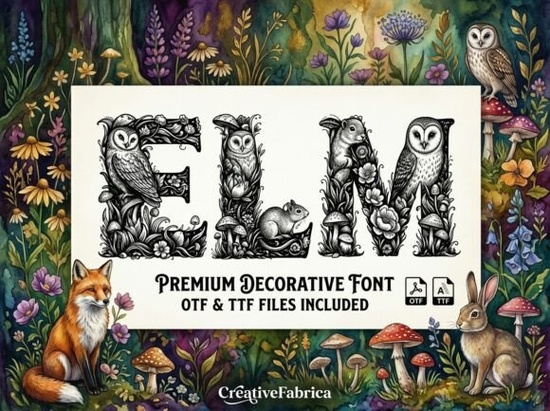
If you're looking for a decorative font that feels like stepping into an illustrated storybook where every letter breathes with woodland life you’ll love Elm Font. It’s not just another whimsical typeface. Each character is hand-crafted with quiet intention: owls perch on crossbars, squirrels curl around curves, mushrooms nestle in counters, and ivy winds through stems. Designed for creators who value both charm and craftsmanship, Elm fits naturally into projects where atmosphere matters as much as legibility like fantasy book covers, nature-themed nursery prints, or Instagram headers that invite a second glance.
What makes Elm different from other decorative fonts?
Most decorative fonts lean heavily on ornamentation but Elm uses illustration as structure. The animals and plants aren’t added-on flourishes; they’re integral to the letterforms. That means it holds up well at larger sizes (think wall art or book titles), while still reading clearly at medium scale (like social media banners or greeting cards). Unlike script-heavy or overly condensed options, Elm has generous spacing and balanced weight distribution so it doesn’t feel cramped or chaotic, even when layered over textured backgrounds or paired with simpler sans-serif companions.
It’s also thoughtfully expanded: includes full Latin A–Z, numerals, punctuation, and multilingual support for Western European languages. You’ll find stylistic alternates for key letters (like a version of “A” with two owls facing each other), plus ligatures that subtly enhance flow without sacrificing readability.
Who uses Elm and how?
Designers building cohesive brand identities for indie publishers often reach for Elm when launching a new fantasy series it gives titles instant warmth and narrative texture. Print-on-demand sellers use it for nursery decor bundles, especially those leaning into cottagecore or forest-aesthetic themes. Small businesses running nature-based subscription boxes or eco-conscious apothecaries choose Elm for labels and packaging inserts because it conveys care and quiet magic not gimmickry.
How does Elm compare to other popular decorative fonts?
It sits comfortably between the playful energy of Pirate Font and the elegant restraint of Aftab Font. Pirate leans bolder and more theatrical great for carnival posters or kids’ party invites. Aftab offers refined calligraphic rhythm, ideal for wedding stationery or luxury branding. Elm occupies its own niche: gentle, immersive, and quietly detailed like finding a hidden glade in a familiar woods.
You’ll also notice Elm avoids common pitfalls of highly illustrated fonts: no visual clutter at small sizes, no inconsistent stroke weights, and no awkward scaling issues. That practicality is why many designers keep it in their go-to folder alongside trusted workhorses not just for special projects, but for anything needing a soft, memorable voice.
Where to use Elm (and where to pause)
Best used for:
- Book cover typography especially middle-grade fantasy, fairy tale retellings, or nature memoirs
- Nursery wall quotes and framed prints (pair with muted earth tones or linen-textured backdrops)
- Social media headers for accounts focused on foraging, herbalism, slow living, or forest bathing
- Invitations for woodland-themed baby showers or garden weddings
- Labels and tags for handmade soaps, beeswax candles, or dried botanical blends
Less ideal for:
- Body text or long paragraphs (it’s decorative not functional for reading)
- High-contrast signage where clarity trumps charm (e.g., street banners or safety notices)
- Logos requiring extreme scalability down to favicon size
For inspiration, check out real-world examples of Elm Font in action across Creative Market and Creative Fabrica especially user-uploaded mockups showing how it pairs with watercolor textures or hand-drawn borders.
- ✅ Confirm your project benefits from illustrative, nature-infused tone not just “cute” or “vintage”
- ✅ You’ll be using it primarily at medium-to-large sizes (18pt and up)
- ✅ You’re comfortable pairing it with one clean supporting font (we often use Montserrat Light or Playfair Display Italic for contrast)
If those line up, Elm Font is ready to bring quiet forest magic to your next project without asking you to overthink it.